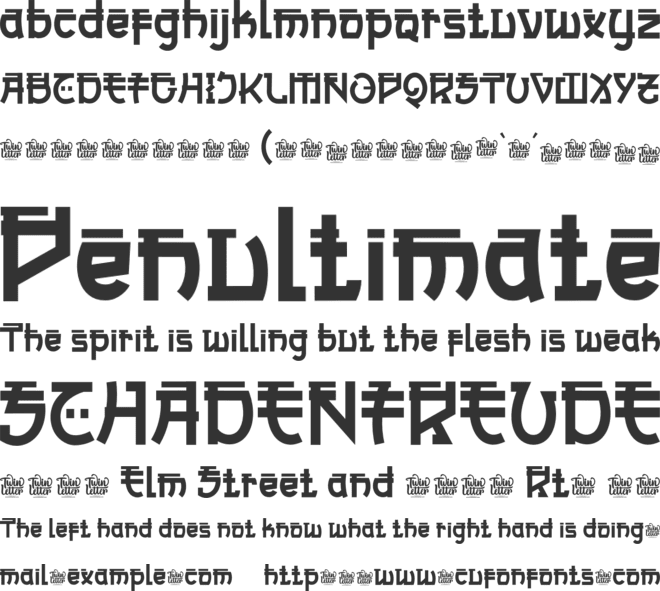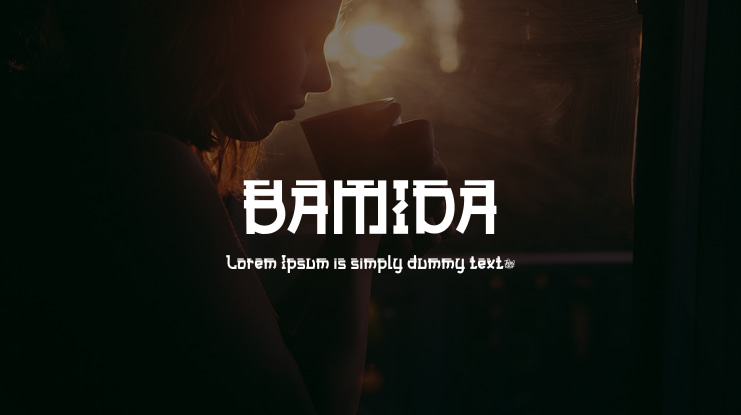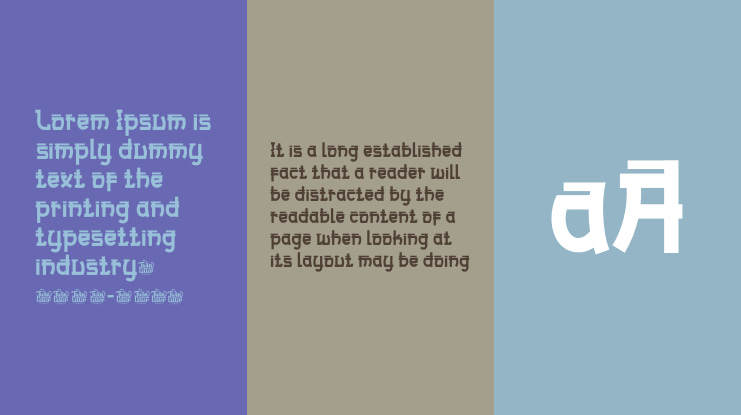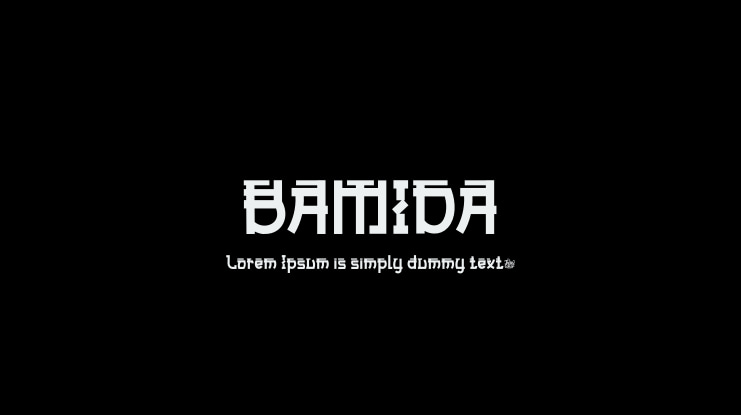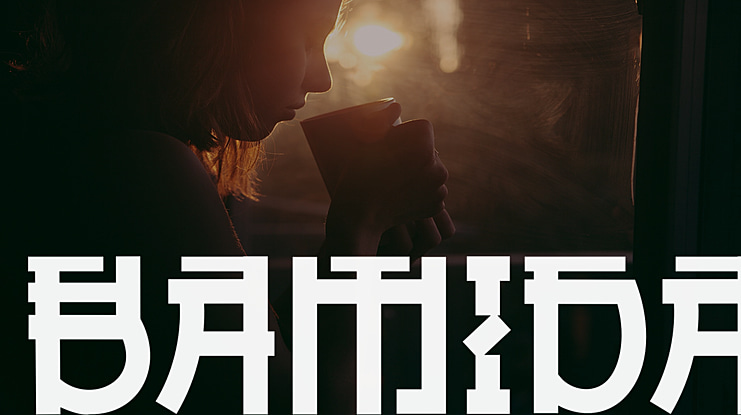
BAMIDA Font
BAMIDA is a Japanese-themed display font that uses the most natural fonts to create a stunning, natural, and elegant visual presentation.
If you select this typeface, your project will have a graphic presentation that your audience will enjoy. It will be striking, well-known, and easy to recall.